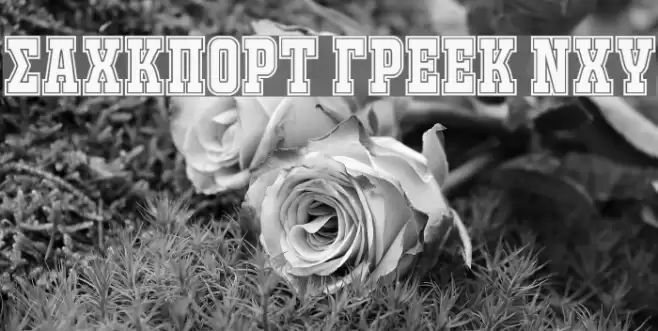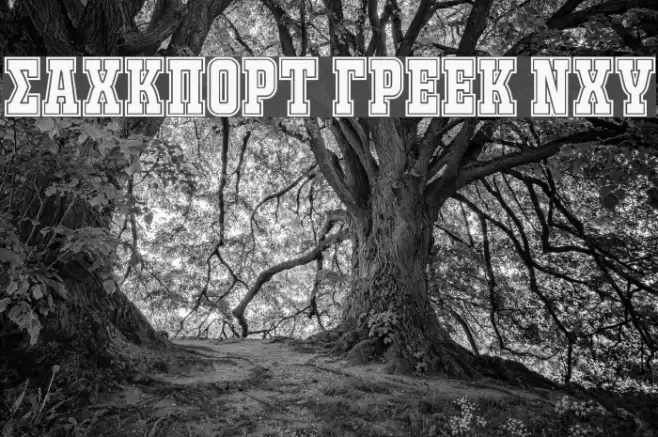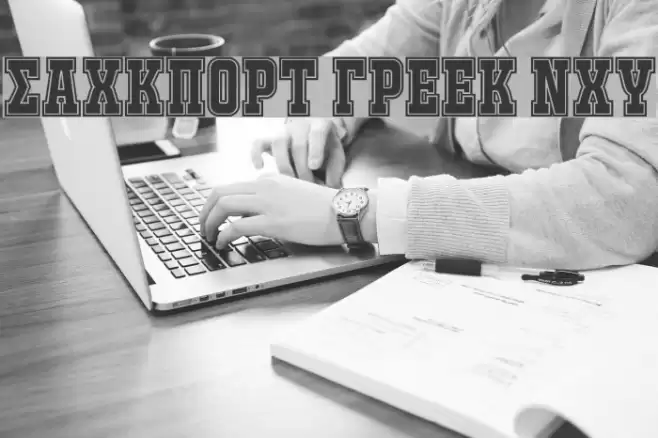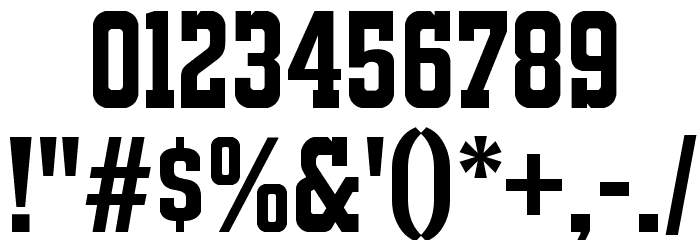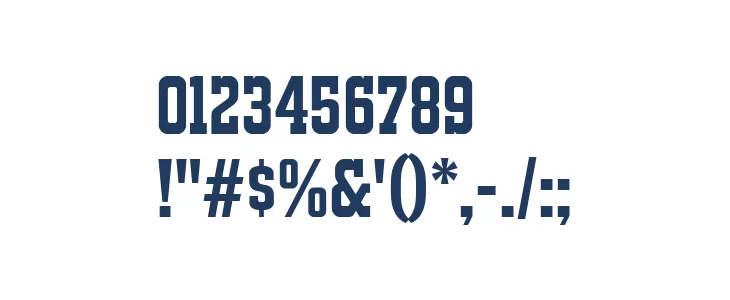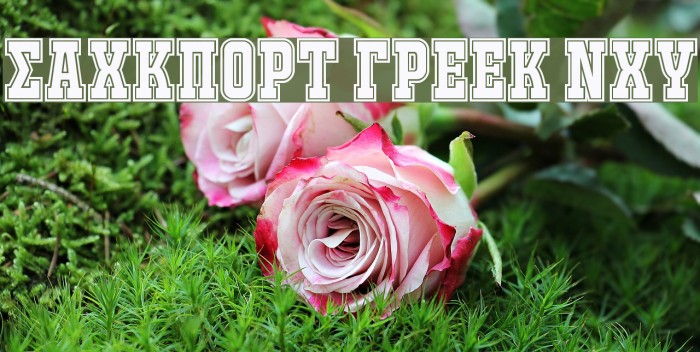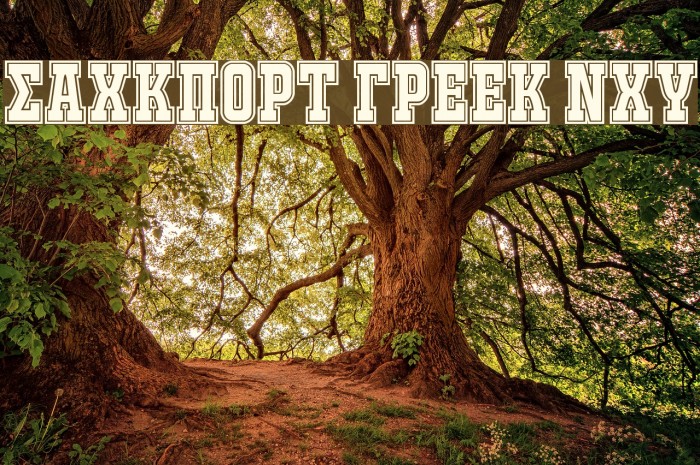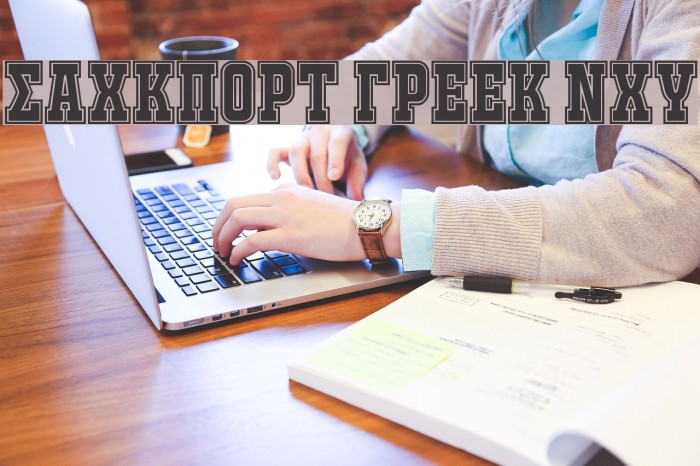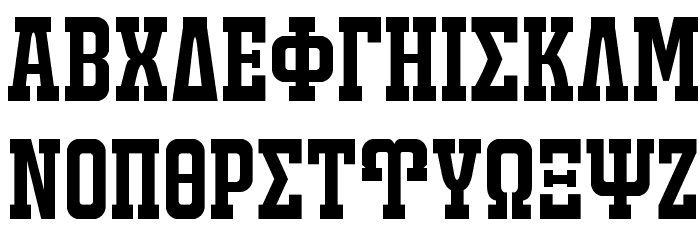
JACKPORT GREEK NCV Font
JACKPORT GREEK NCV Description
This font features a bold and impactful design with a strong, athletic aesthetic. The uppercase letters are styled with a double outline, giving them a three-dimensional effect that enhances their visibility and presence. The characters are evenly spaced, ensuring clarity and readability. The numbers and special characters maintain the same boldness, making them suitable for various applications. The font's robust and structured appearance makes it ideal for projects that require a commanding and authoritative look.
A bold, athletic font with a double outline and strong presence from athletic fonts.